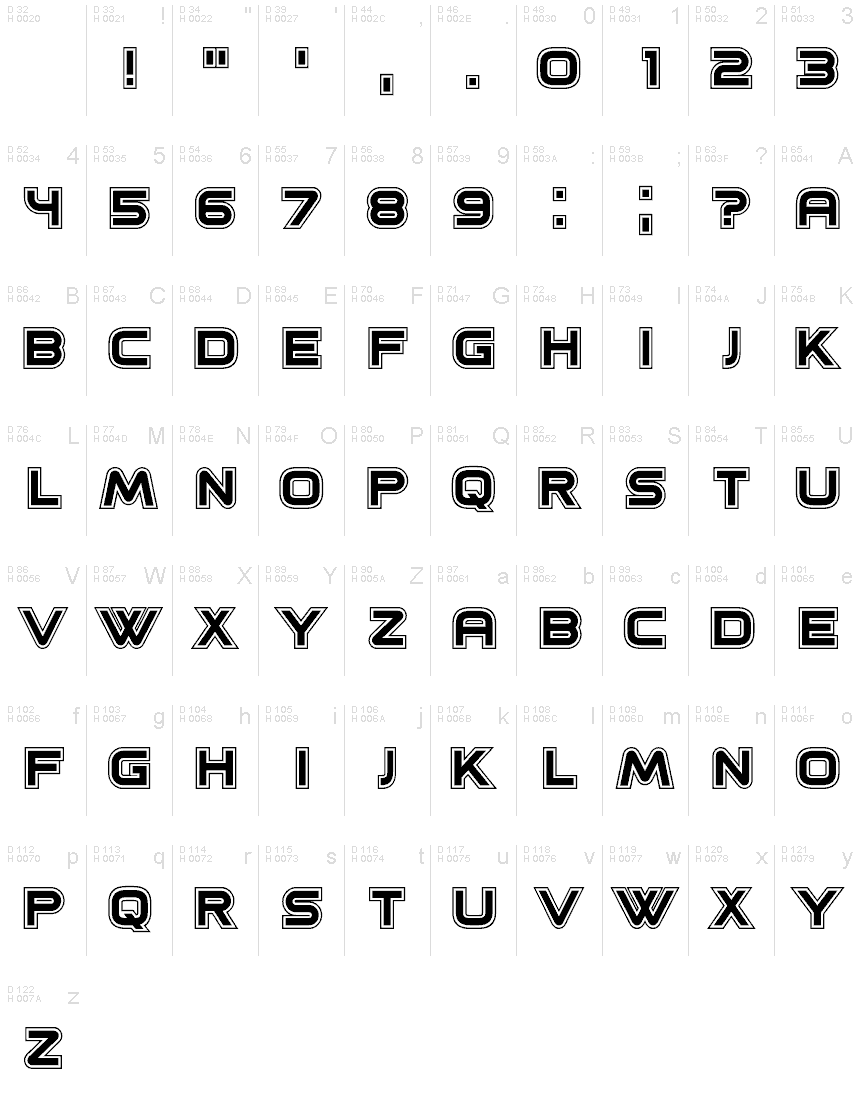
Boeing College
Boeing College font by Vladimir Nikolic is a bold expanded sans serif font with a modern style. It does not concentrate on size but rather shows power through structure and order. Letters display a futuristic approach, one that takes inspiration from the industry, technology, and geometry. With strokes that match all over and very similar builds/counter spaces in letters, readabilities is always going to be high.
This free modern display font can be used on branding campaigns across multiple touchpoints. Use it for educational institutions’ websites and for writing PDF brochures or creating icons within them. Website creation (menu categories), UI/UX (app navigation buttons), app development (sub-headlines), posters, outdoor banners, billboard designs, magazines…and we’ll stop counting here!